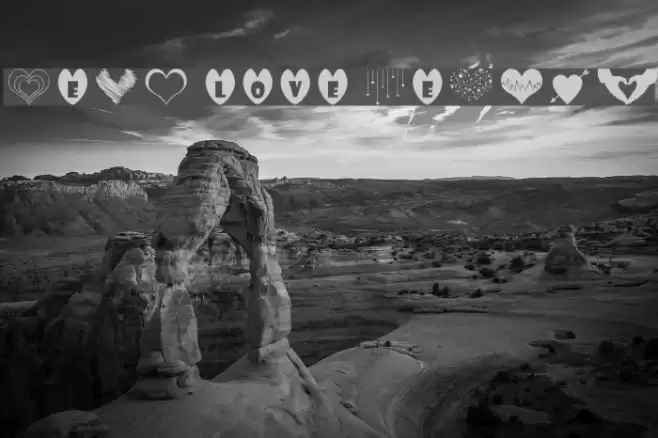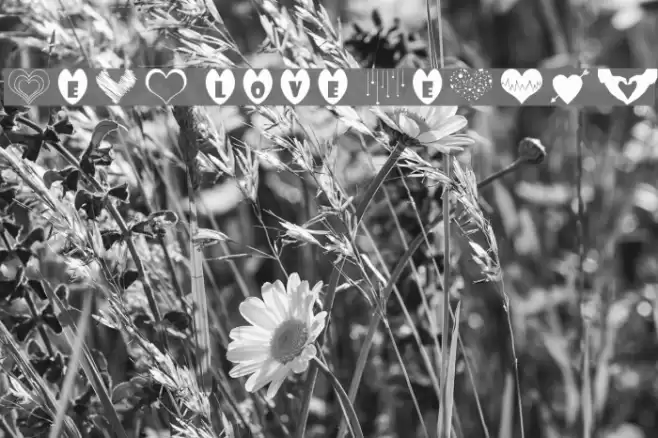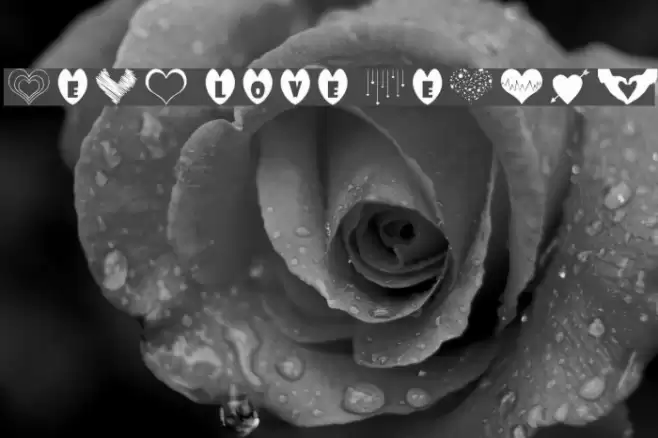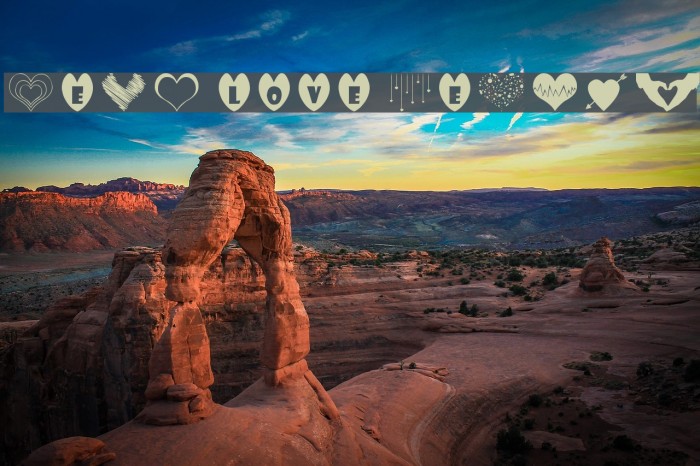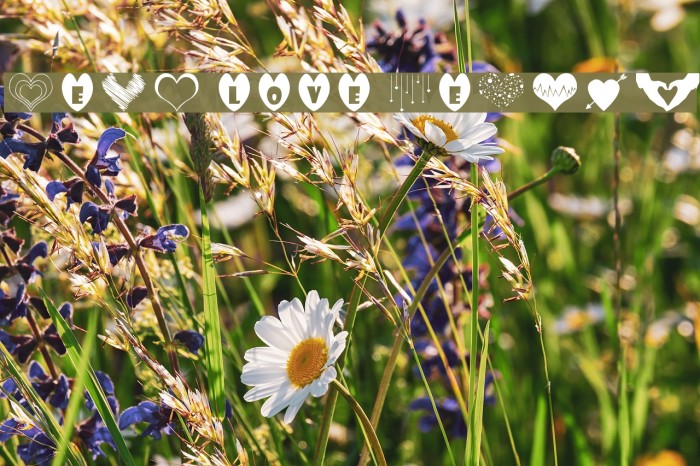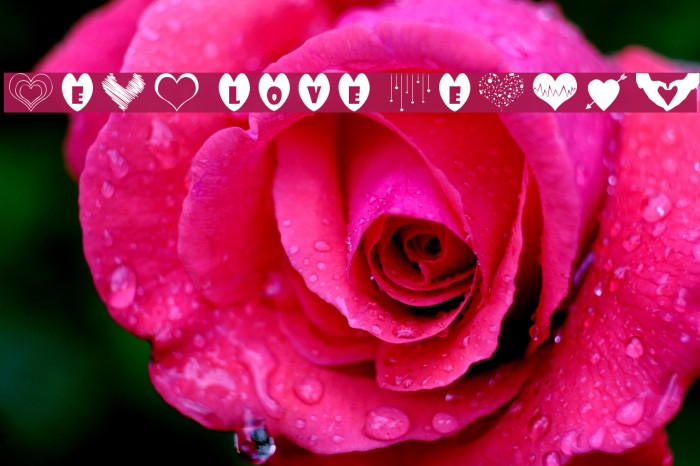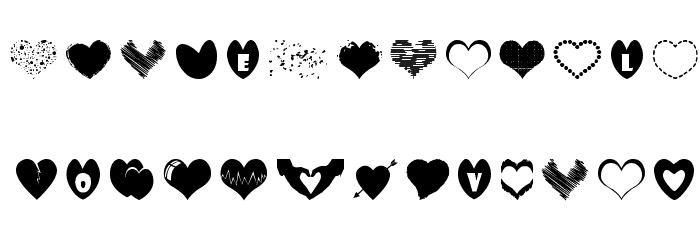
Sexy Love Hearts Font
Sexy Love Hearts Description
This decorative font features a playful and romantic theme, incorporating heart shapes into the design of each character. The uppercase and lowercase letters are creatively integrated with various heart motifs, making each letter unique and visually engaging. The numbers and special characters maintain a classic serif style, providing a contrast to the whimsical letterforms. This font is ideal for projects that require a touch of love and creativity, such as Valentine's Day cards, wedding invitations, or romantic-themed branding. The combination of decorative and classic elements makes it versatile for both formal and playful contexts.
A romantic, heart-themed decorative font with classic serif numbers and symbols from Uncategorized fonts.
- Proposed Projects: Valentine's Day cards, wedding invitations, romantic branding, love-themed posters.
- Use Case: Headlines, Logos, Invitations